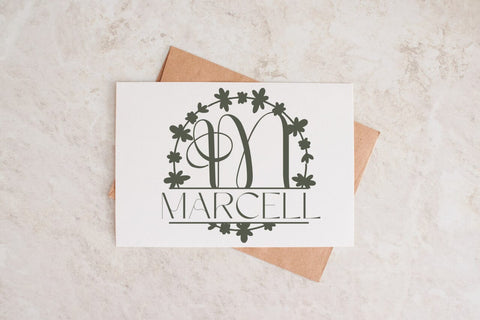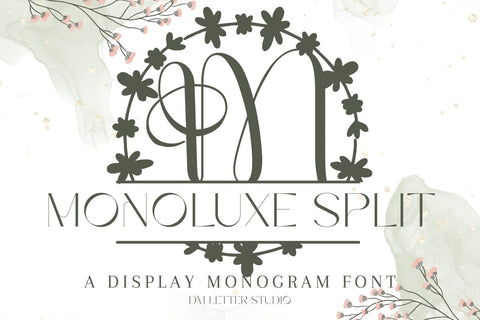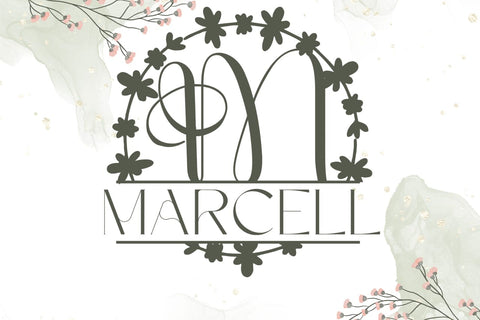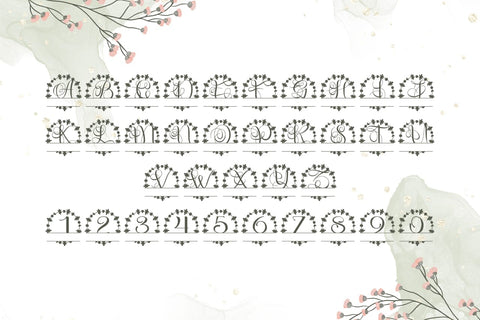
Monoluxe Split Monogram Font
Meet Monoluxe Split Monogram Font
Monoluxe Split Monogram Font turns any initial into a sleek, name-ready emblem in seconds. Calm, balanced letterforms deliver boutique poise, while a precise horizontal split creates natural space for names, dates, or short words. Because spacing stays even and counters remain open, designs look polished on tiny tags, door hangers, tumblers, ornaments, menus, and statement wall art. Pair it with a clean sans or a light script and every layout stays readable, premium, and on-brand.
Where this split monogram font shines
Set one hero initial, then place the family name inside the split for instant personalization. Next, try couple names for engagement gifts, venue names for signage, or short words like Home, Welcome, and Love for seasonal décor. Since the proportions favor clarity, files scale smoothly for Cricut, Silhouette, Glowforge, and laser projects. As a result, batch customization stays fast and consistent across listings, shows, and storefronts.
Design tips for Monoluxe Split Monogram
Keep the hero initial large and let white space breathe. Place the split at center or slightly low for a calm baseline. Choose a simple supporting font inside the split to protect legibility on small items. Because the style is modern and refined, metallic foils, linen textures, and natural woods add instant value. Keep names concise so the composition remains balanced and clear at thumbnail size.
Uppercase alphabet optimized for split monograms
Matching lowercase, numbers, punctuation
Curves tuned for engraving, foil, laser cutting, and clean vinyl paths
Why makers choose this split monogram font
You want fast personalization that still feels bespoke. Monoluxe Split Monogram Font delivers consistent, high-end name designs in minutes while keeping your shop’s visual language cohesive from gifts to signage.